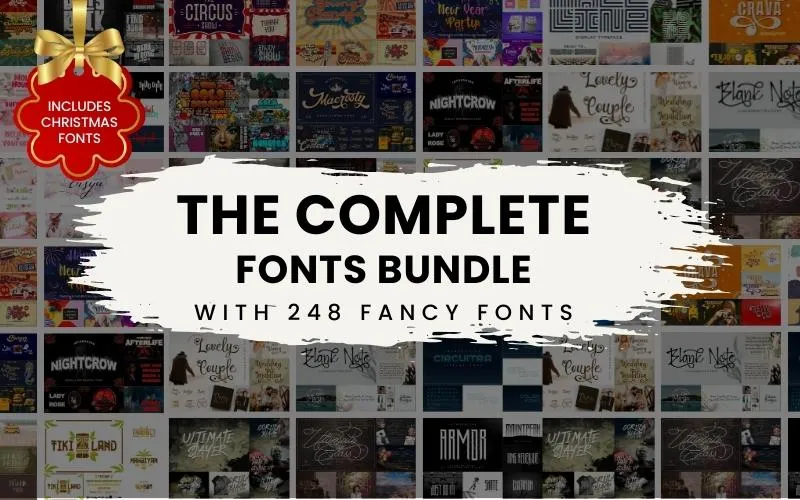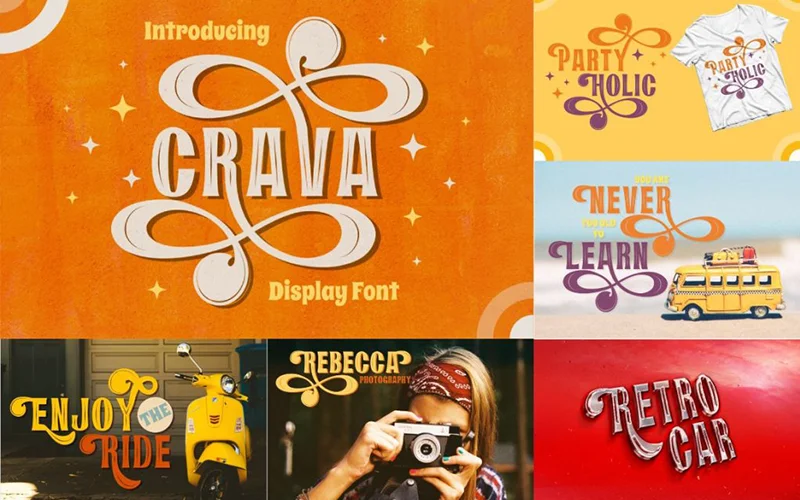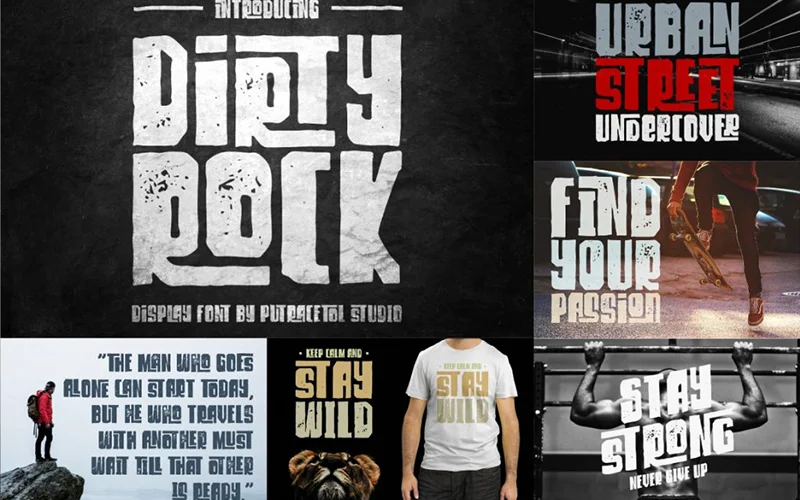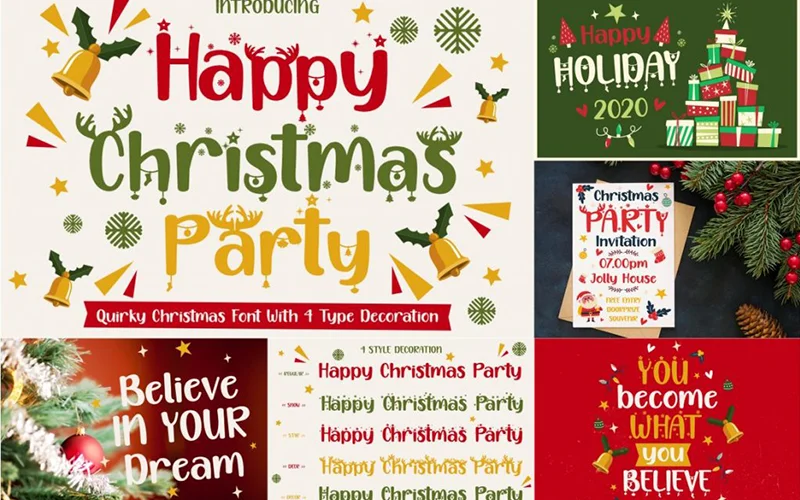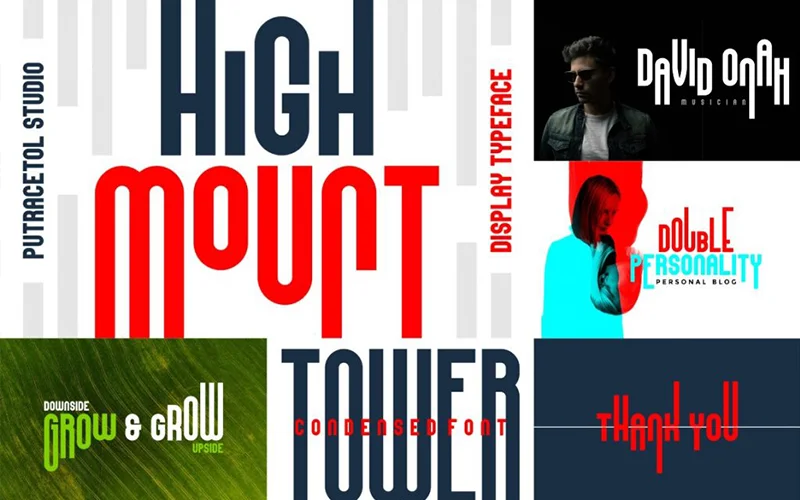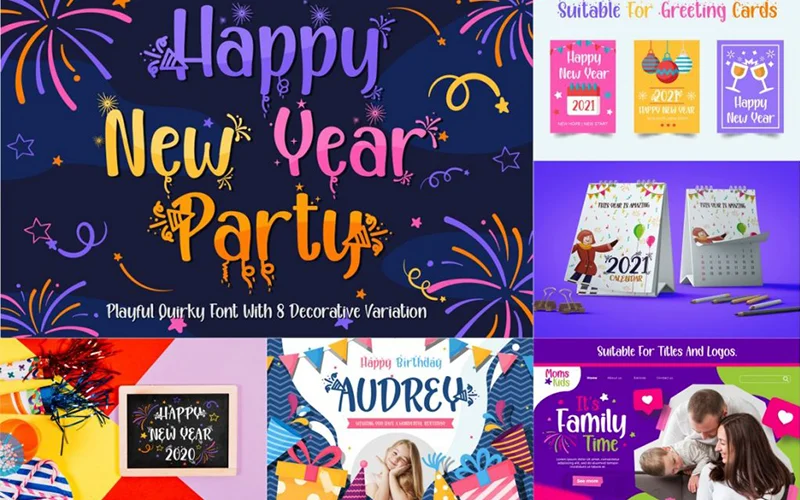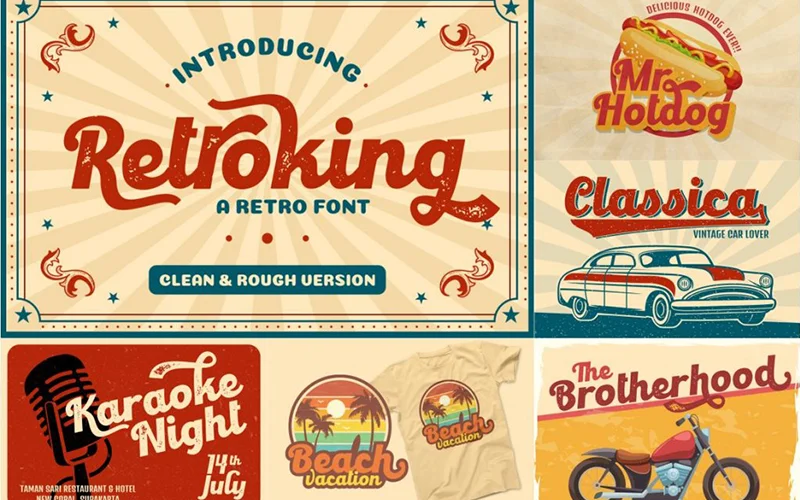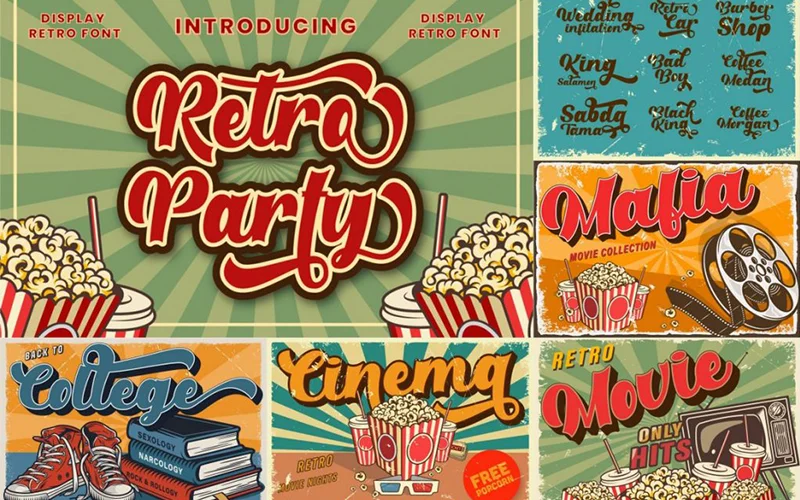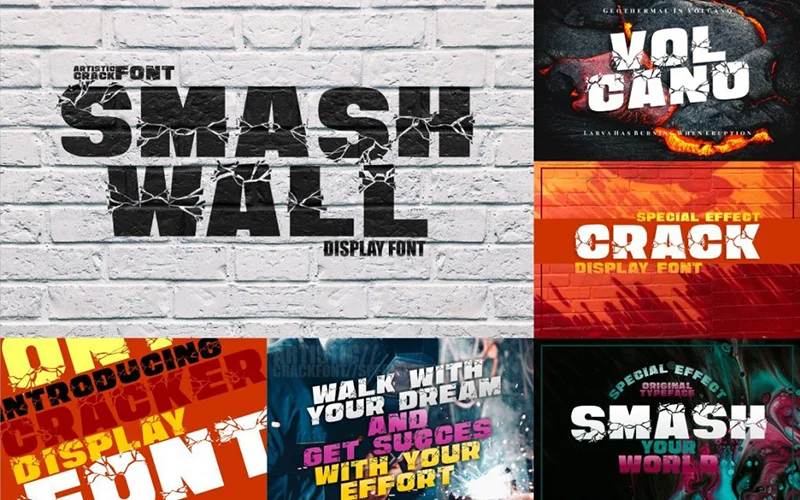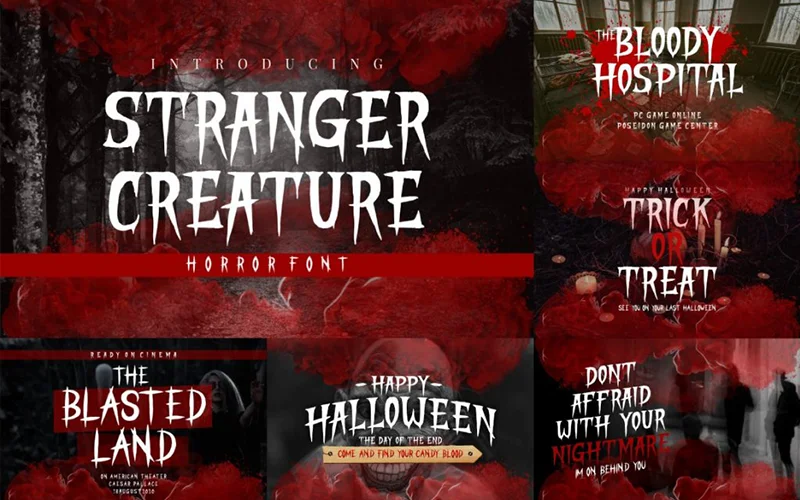
Update your graphics toolkit and create tons of fancy designs using the –
Fancy Fonts Bundle
These fancy fonts include many styles like retro/vintage, script, brush, signature, sans-serif & others.
You can use these fonts to create logos, crafting, invitation cards, apparels, headlines, business cards, inspirational quotes, tshirt, posters, wedding design, packaging, and a lot more!
Categories included in the fancy fonts bundle:
Fancy Bold Fonts:
The Bold Street Font
Boldest Script Font
Boldline Font
Happy Christmas Party Font
Stranger Creature Font
Happy New Year Party Font
Thickline Font
Barstrip Font
Garis
Lengkung Font
Beauty and Love Font
Corlita – Font Trio
Circuitra
Color Font Font
The Excited Font
Honey Berry Font
Quentara Font
Roxer Font
Clowney Font
Waffle Latte Font
The Doctor Signature Font
West Kingdom Font
Fun Kids Font
Lyodra Font
Latisha Font
Grandmora Font
Mayla Font
Anitya Font
Rasputia Font
Headbrush Font
Coldcoast Font
Pearlye Font
Goldenlife Font
Audrena Font
Blank Note Font
Clarinta Font
Garland Font
Fancy Bold Script Fonts:
Winslet Font
Valentijn Font
Cavilay Script Font
Yesie Font
Sweety Lovers – Signature Script Font
The Ultimate Class Script Font
Simbok Pudjie Script Font
Melodious Script Font
Lusya – Elegant Script Font
Sweetyhearts Font
The Beautyline Font
Silky Candy – Cute Sweet Font
Blossom Heart Font
Romantic Dates Font
Secret Darling Font
Kanaya – Romantic Font
Romantic February Font
Cute Love Story Font
Antiqueline – Monoline Typeface
Daysha – Wedding Font
Fancy Serif Fonts:
Therlalu Font
Revalate Font
Safiar Font
Vanetta Font
Arshaka Font
Zahiya Font
Rose Thorns Font
Handaru Font
Pixel Bit Typeface Font
Glamoury Font
Aliyah Font
Armor Font
Audery Font Font
Ayana Font
Keshia Font Font
Laureta Font
Mahaputra Font
Marceila Font
Networld Font
Nuri Font Font
Fancy Display Font:
The Circus Show Font
High Mount Font
Dirty rock typeface Font
Smash wall Font
Maze Line Typeface
Crava Font
Mixy Missy Font
Digitechno Font
Royal Queen Font
Smooth Butter Font
Mahacara Font
Joy Friends Font
The Scientist Font
Playlines Typeface
The Knight Font
Laniesky Font
The Knight Font
Laniesky Font
Royal King Font
Shanela Font
Shaquilla Font
Sherley Font
Skywave Typeface
Stasya Font
Strip Deco Font
Tashia Font
Tikiland Typeface
Visaka Font
Darkrise Typeface
Delacruz Typeface
Arjunka Typeface
Horstail Typeface
Fancy Vintage Fonts:
Vintage Party – Bold Retro Script Font
Vintage Queens – Retro Bold Script Font
Night Crow Font
Techno Board Font
Road Stone Font
Urban Sketart Font
Amarithe Font
Fathur Font
Shecarea Font
Elvino Font
Eurolite Sport Font
Florita Font Duo
Havina Font
Springgate Font
Alvarisky Font
Candrika Font
Rahardian Font
Fancy Handbrush Fonts:
Rotters Font
Pax Suyud Rough Font
Rougher Handbrush Font
Slatter Handbrush Font
Slayer Font
Fancy Retro Fonts:
Retro Party Font
Retro King Font
Strong Grandpa Font
Kinghawk Font
Love Fairy Font
Sunshine Mine Font
Water Splash Font
Honey Taste Font
Rahaely Font
Gayesha Font
Macrosty Font
Lovely Couple Font
Fancy Modern Fonts:
Quiltix Typeface Font
Absolute Joyful Font
Rhonde Font
Yuanita Font
Bornena Font
Busther Font
Falsetto Signature Font
Ballsye Font
Quaker Ladies Font
Abstract Style Font
Alvarisky Font
Hello Audrey Font
Queen Veronica Font
Unpredictable Font
Burning Hammer Font
Cheesy Bread Font
Radiantly Font
Aiushtya Font
Hello Eisya Font Duo
Ataira Duo Font
Spirly Font
Shafiqa Font
Qonitya Font
Handitype Font
Faylake Font
Handodle Font
Street Road Font
- Various font styles- Retro, Vintage, Script, Brush, Signature, Display, Sans Serif & many more!
- Tons of OpenType features – stylistic alternates, swashes, ligatures, punctuation, symbols and more.